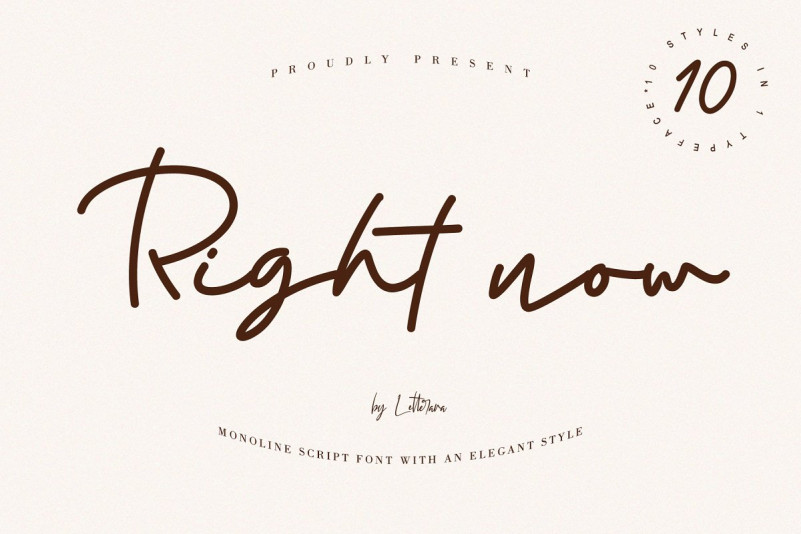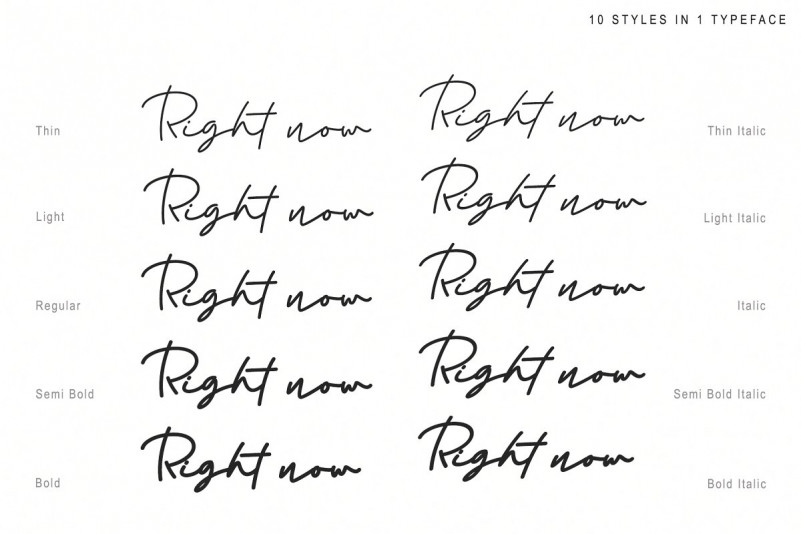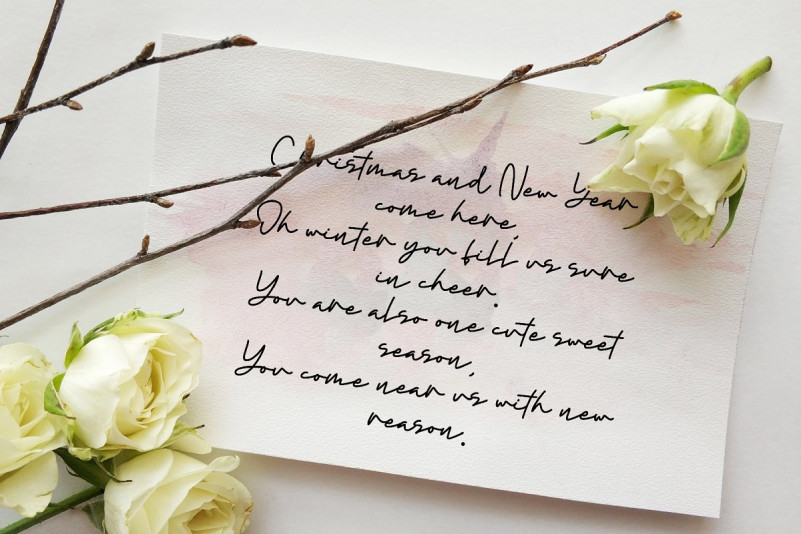
Right Now Signature Font
This is a modern handwritten script, wich simulates natural handwriting. If you want to add a certain charm, appeal and allure in your projects, It’s just what you need, It’s designed and shared by Leterara. Introducing Right Now Font. Right Now Signature now is monoline script with an elegant style. Get inspired by its contemporary style! It’s available in 10 fonts in 1 typefaces : Thin, Light, Regular, Semi Bold, Bold, Thin Italic, Light Italic, Semi Bold Italic, Bold Italic and most importantly, Right now is perfect for you.